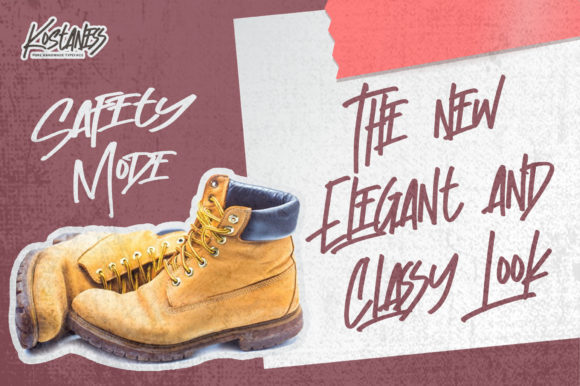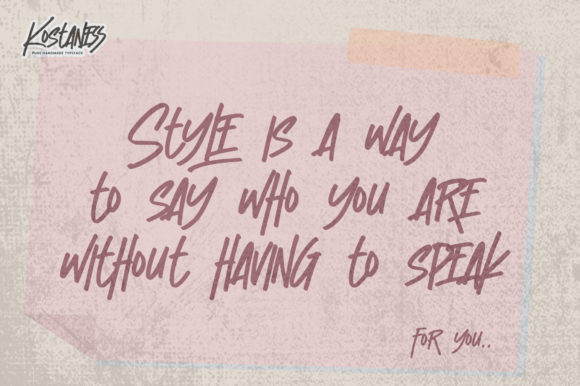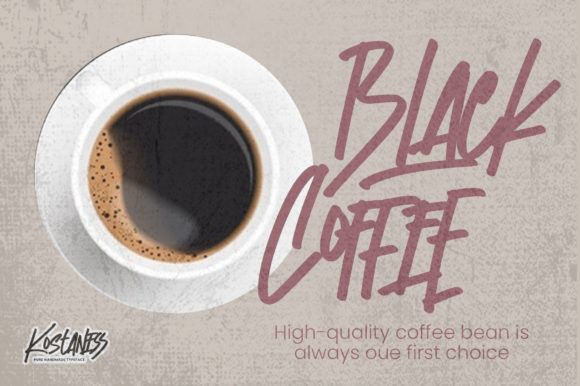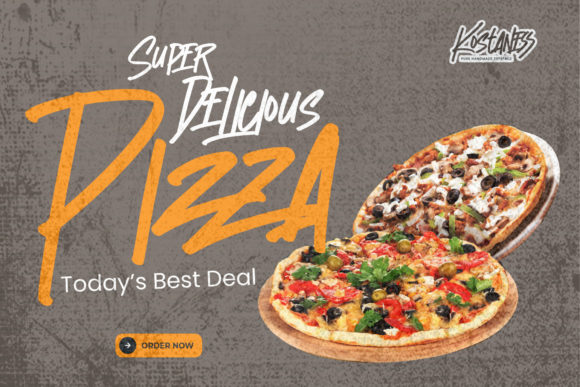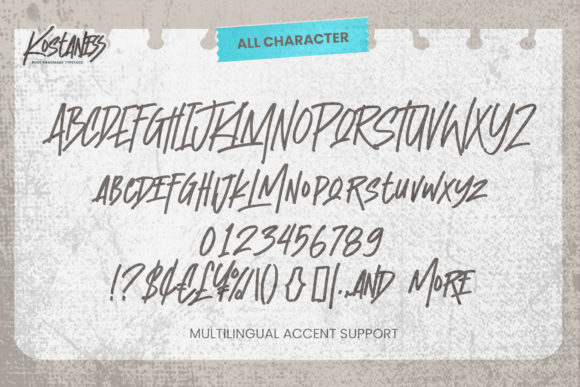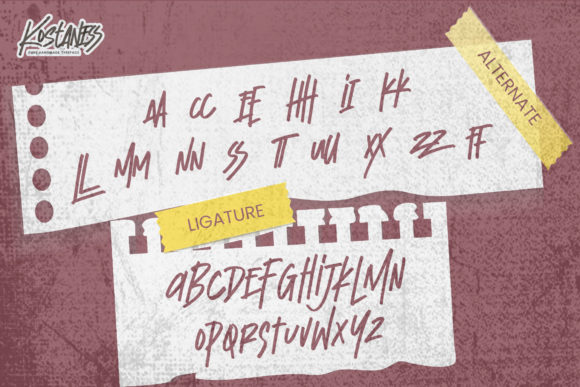
Introduction to Kostaness Font
Kostaness is a crafty and unique handwritten font that will make your design seem natural and beautiful.
It is perfect for any design project that needs inviting and authentic typography This font is PUA encoded which means you can access all of the glyphs and swashes with ease.